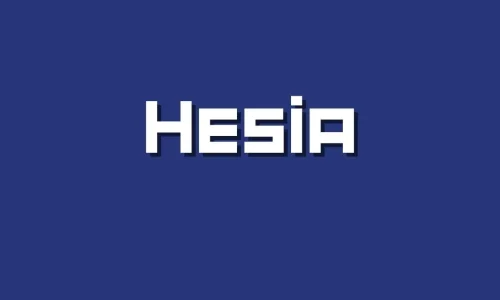
Boomhauer Font is created by Iconian Fonts it is a display text style. Several amazing designs have been created using this font. It is a famous font on the internet and is perfect for those who seeking a unique and stylish font for their project.
This amazing font has attractive features and it is supreme for elegant projects. The lovely style of the letters makes this font renowned all over the world.
The designer uses this font for producing unique projects because it comprises characters that are both fashionable and cool.